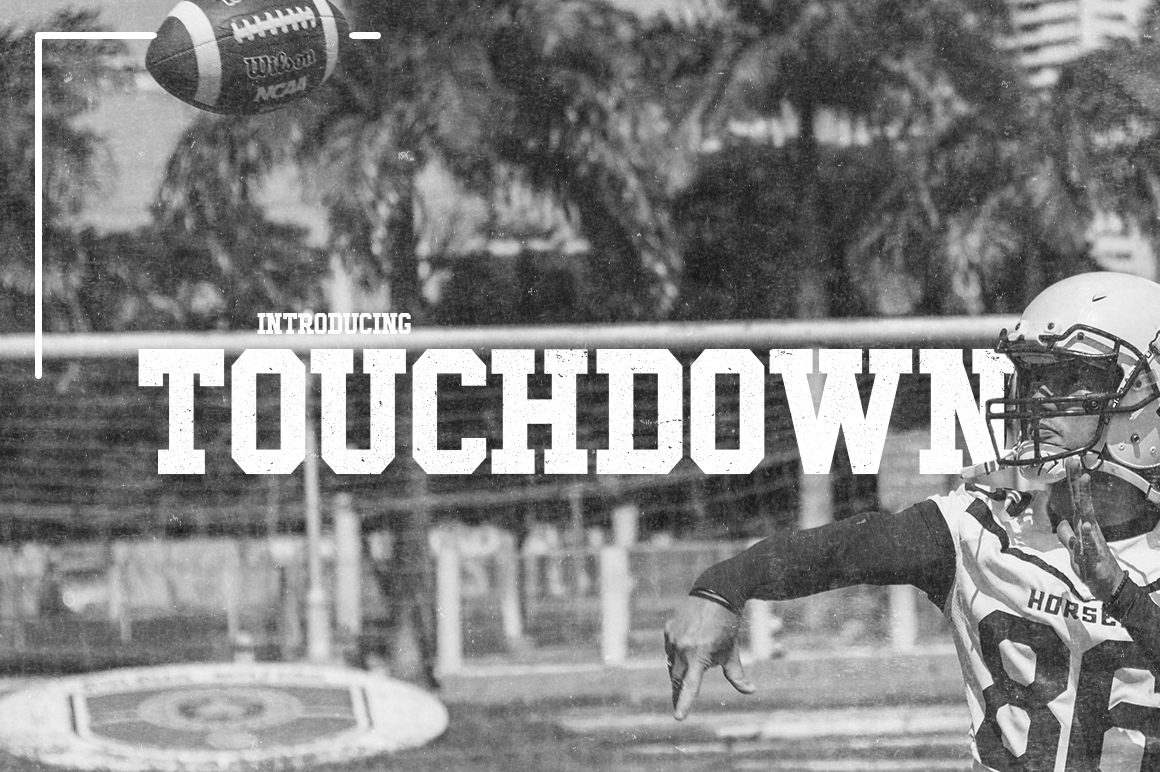
Touchdown Slab Font
Touchdown Slab Font is perfect for football team branding, sports stadium signage, athletic equipment packaging, championship trophy designs, victory celebration posters, sports bar identity, game day promotional materials, team merchandise graphics, sports broadcasting titles, competitive league logos, athletic achievement awards, and triumphant storytelling applications.
Touchdown Slab Font is exciting because it embodies the explosive power and victorious spirit of championship football with bold slab serif letterforms that hit like a perfectly executed game-winning play, creating powerful visual impact that celebrates athletic excellence, teamwork, and the electrifying moment when dedication meets destiny in the end zone.
The Touchdown Slab Font family includes championship variations: Regular, Bold, Heavy, Condensed, Extended, and Victory styles, providing designers with a complete sports typography arsenal to create winning compositions that honor competitive spirit and the relentless pursuit of athletic excellence and team victory.
The font's dynamically crafted letterforms reflect the strategic precision and explosive power that define championship football, with strong horizontal emphasis that mirrors the goal line and bold vertical strokes that echo the uprights. Each character embodies the perfect combination of strength, strategy, and the unwavering determination to reach the end zone.
Touchdown Slab Font excels in creating memorable brand experiences for businesses in sports, athletics, and competitive achievement sectors. Its commanding presence transforms ordinary communications into victory celebrations that resonate with audiences who understand that success comes from teamwork, dedication, and the relentless pursuit of excellence.
Professional designers value how Touchdown Slab Font maintains its athletic character while providing exceptional functionality across diverse sports applications. The comprehensive style range ensures optimal performance from intimate team materials to massive stadium displays, maintaining consistent championship energy and competitive credibility.
This remarkable typeface brings instant athletic authority to sports ventures and competition-focused businesses. From professional teams to youth leagues, Touchdown Slab Font creates lasting impressions that communicate strength, unity, and the transformative power of athletic achievement to inspire greatness in every competitor.